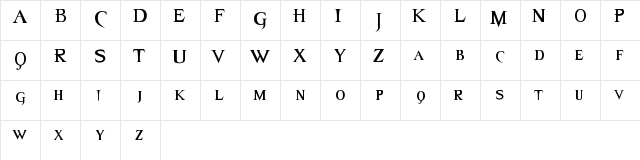
Van Helsing Regular
Design Context for Van Helsing Typeface
Van Helsing is a composed and adaptable typeface that performs quietly and consistently across a wide range of design contexts.
Pro Tip: Use Van Helsing in both headline and body roles to test its range before committing to a single application.